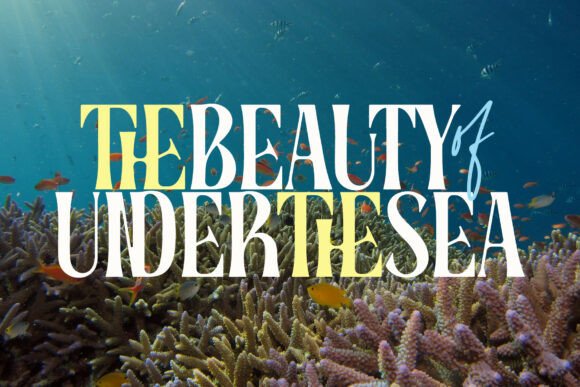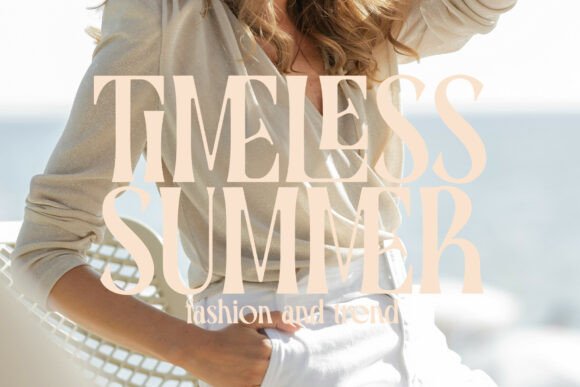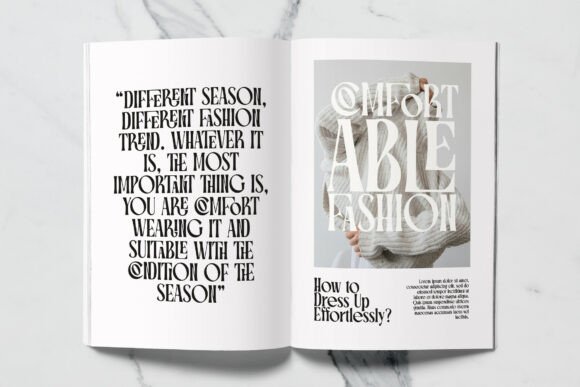
Introduction to Coral Root Font
Coral Root is modern and elegant serif font.
It is fancy, classy, and radiating luxurious looks Coral Root has few uppercase ligatures to give more stylish shape.